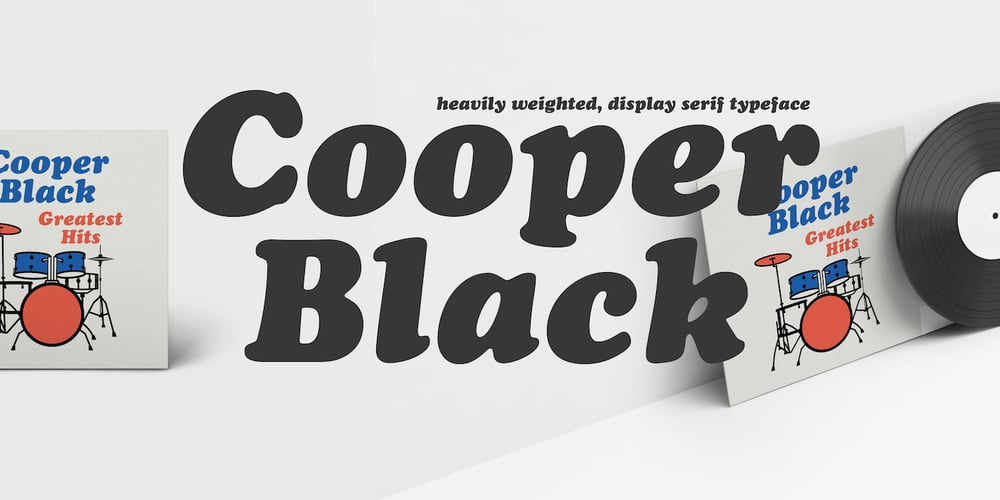
Cooper Black Font Family was designed by Oswald Bruce Cooper and published by Linotype. Cooper Black contains 2 styles and family package options. Oswald Bruce Cooper designed Cooper Black, an extra bold roman face, based on the forms of his earlier typeface Cooper Old Style, which appeared with Barnhart Brothers & Spindler Type Founders in Chicago. Copper Black was produced by Barnhart in 1922 and acquired in 1924 by the Schriftguß AG in Dresden, where it was later completed with a matching italic. Although Cooper Black appeared in the first third of the 20th century, it still looks contemporary and it can be found on storefronts in almost any city scene. The flowing outer contours create forms that are both strong and soft, making Cooper Black an extremely flexible font.